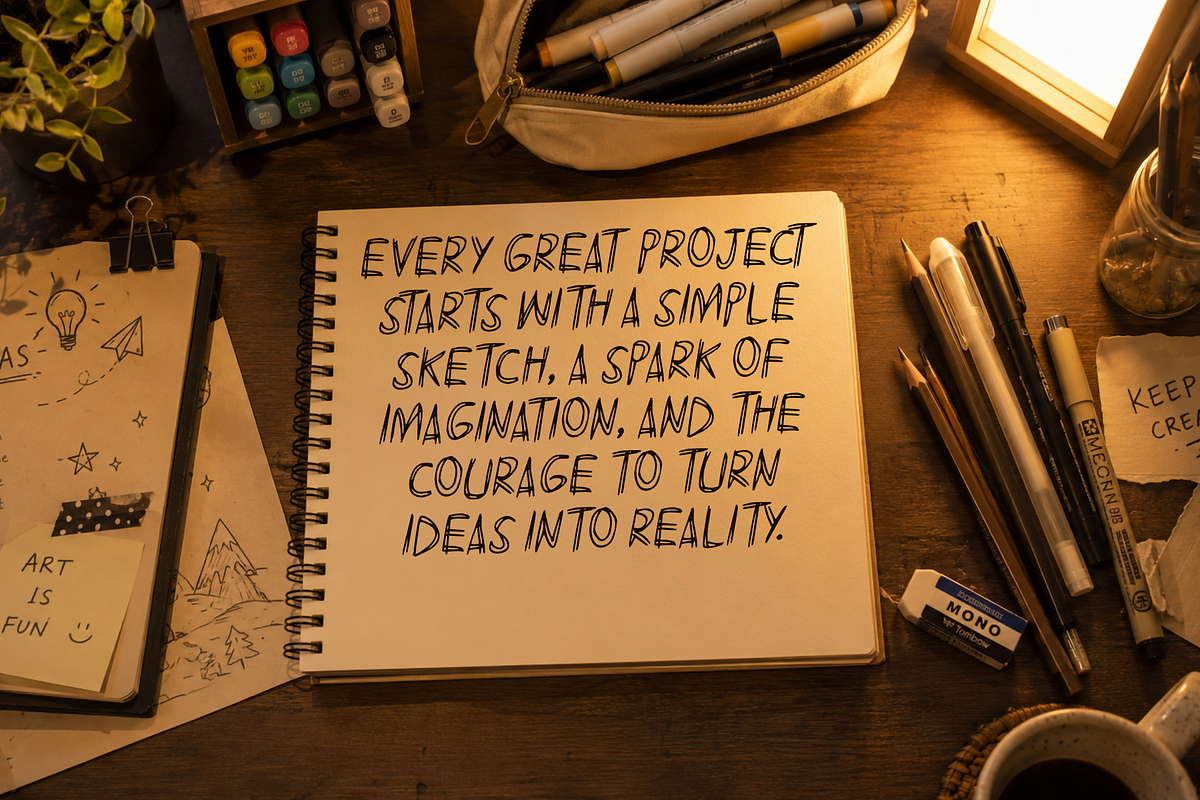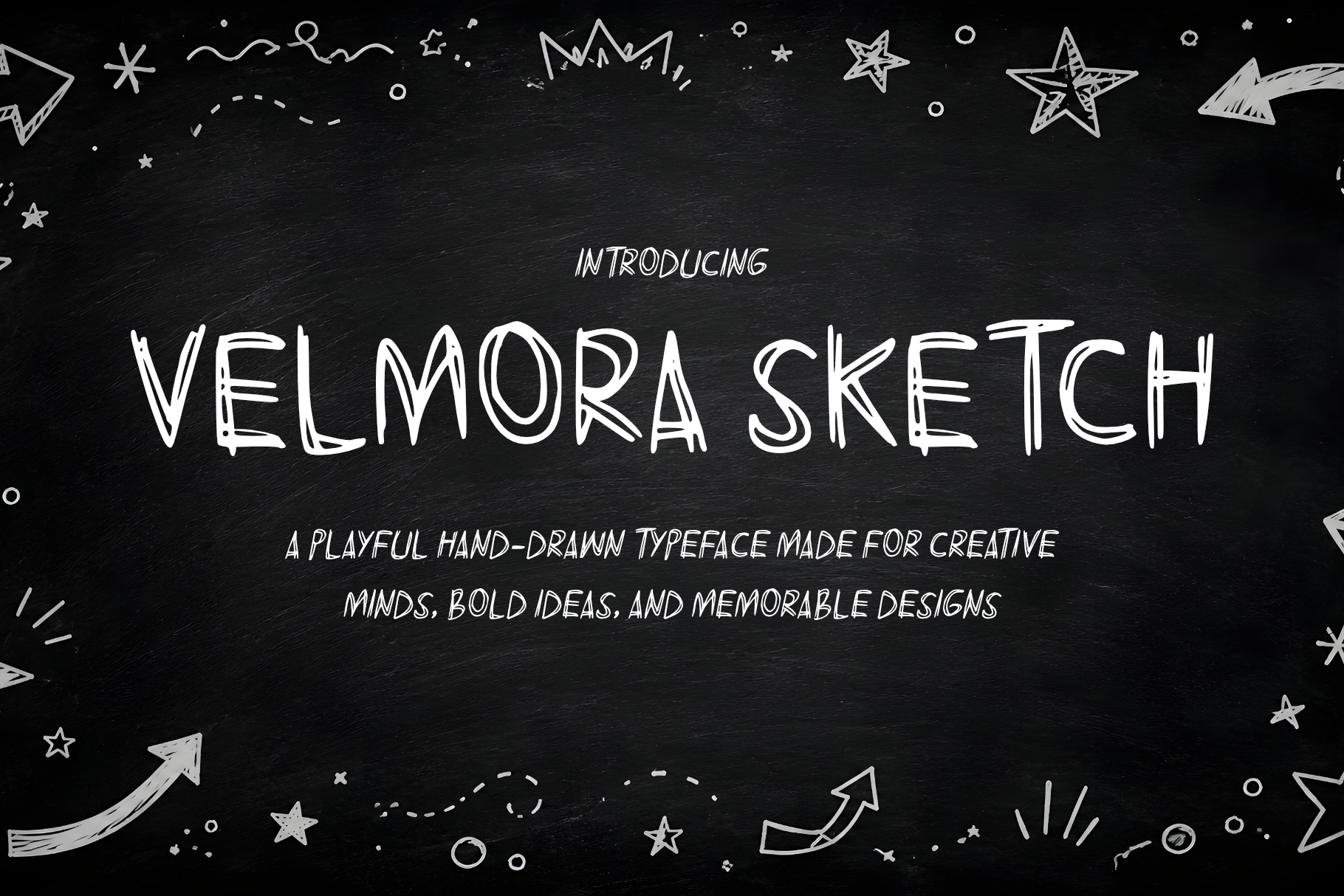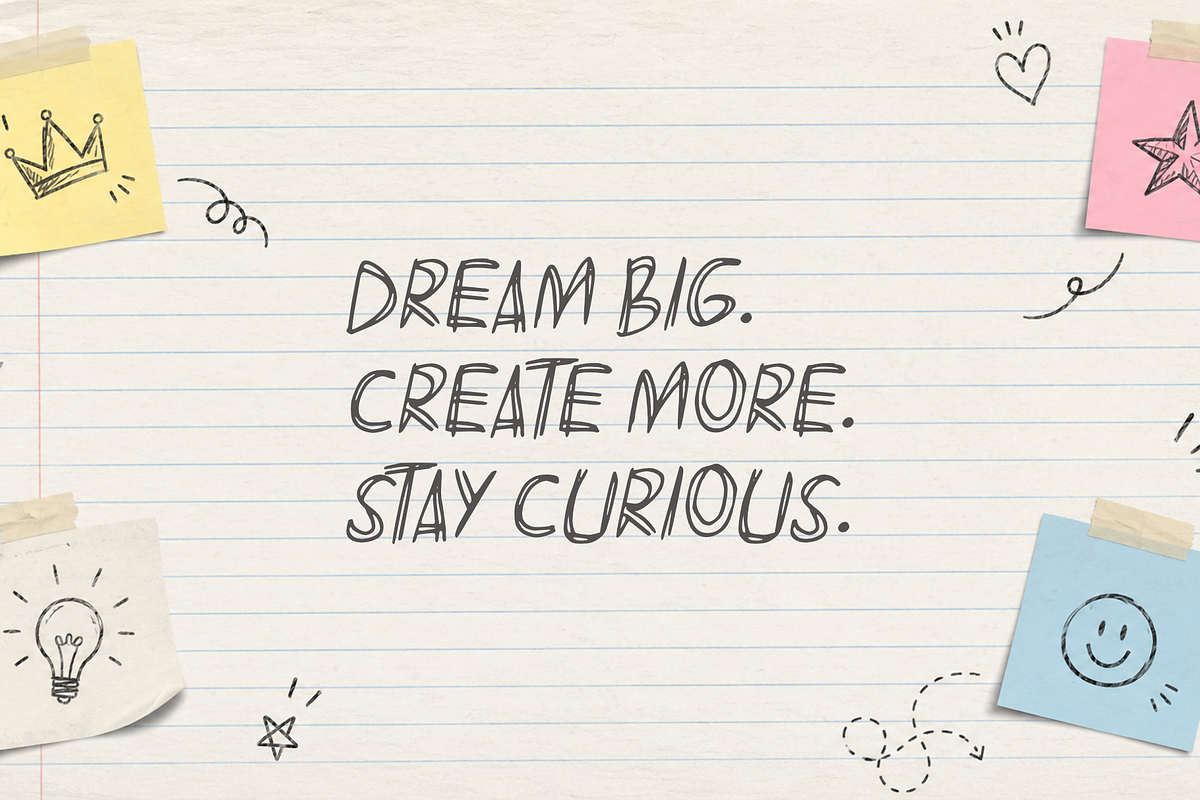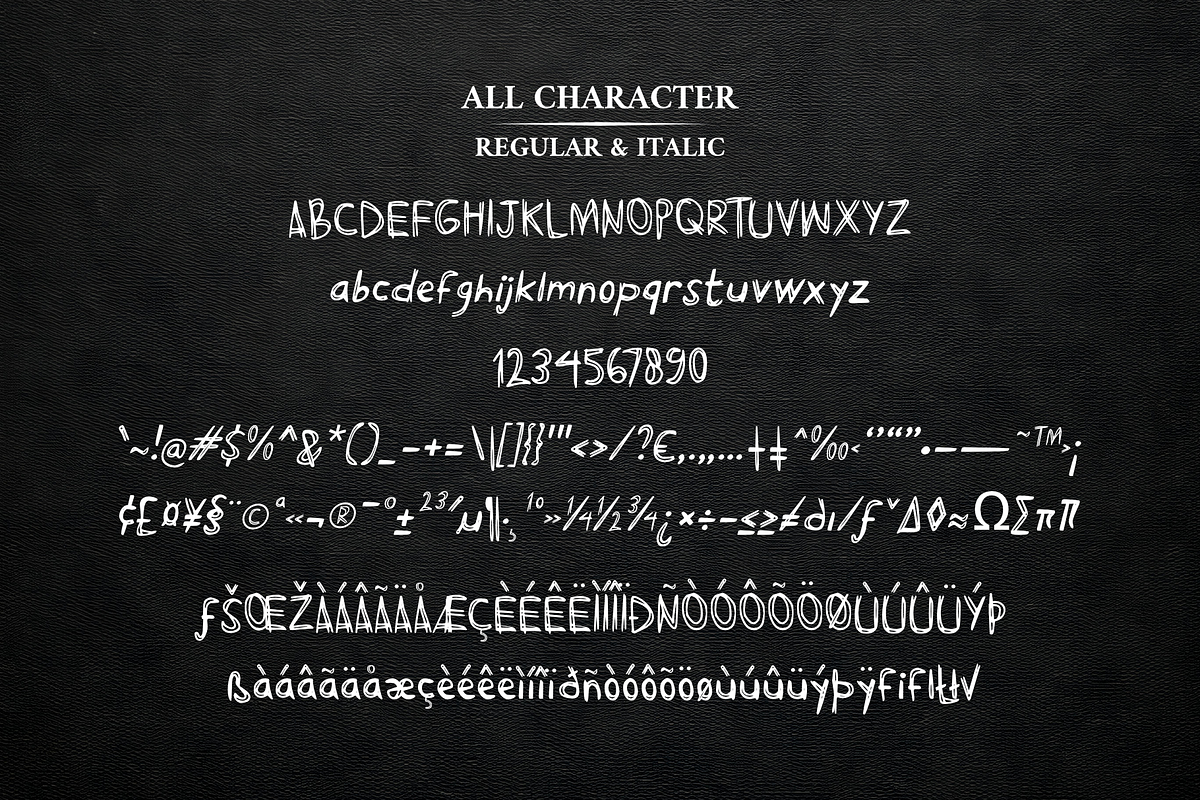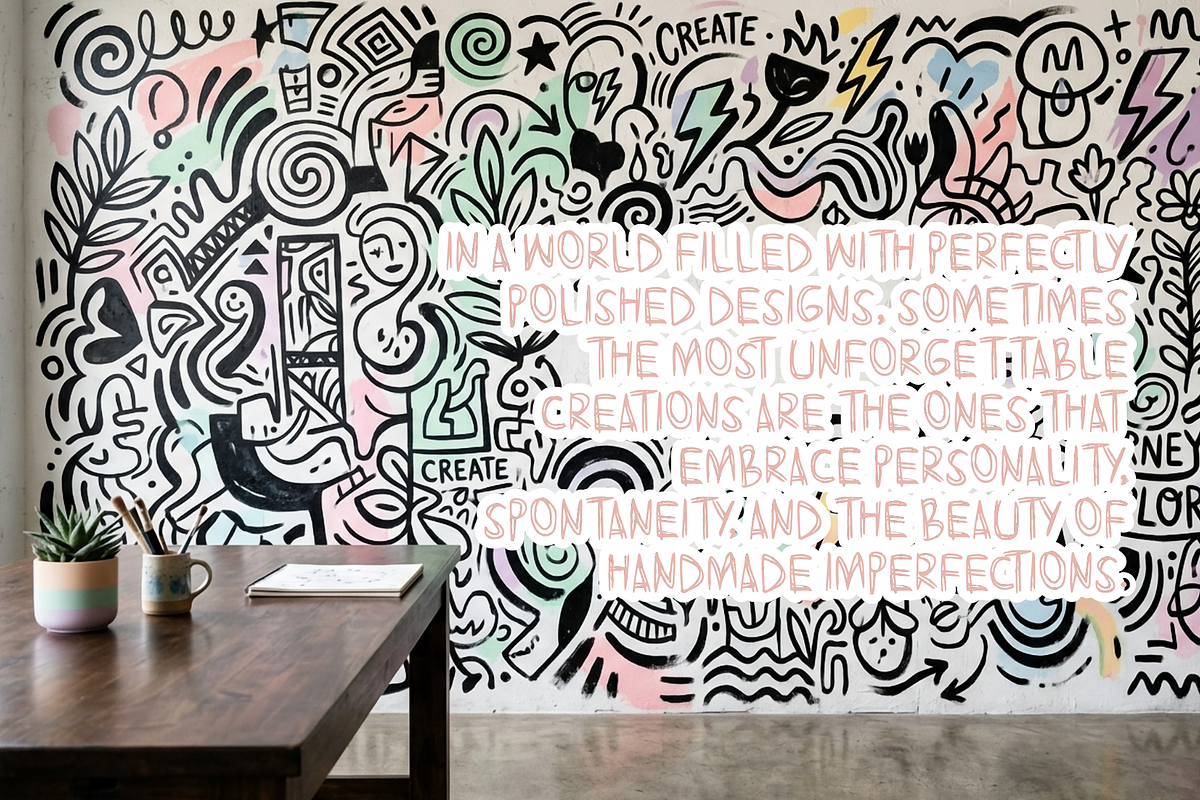
Velmora Sketch - Playful Doodle Font
Velmora Sketch is a playful hand-drawn display font inspired by the charm of spontaneous pencil sketches and creative doodles. Its organic lines, imperfect strokes, and handcrafted appearance bring warmth, personality, and authenticity to any design. Designed to capture the feeling of ideas coming to life on paper, Velmora Sketch adds a fun and imaginative touch while maintaining excellent readability.
Perfect for creative branding, children's products, posters, social media graphics, packaging, journals, DIY projects, and artistic merchandise, this font effortlessly creates a friendly and approachable atmosphere. Whether you're designing a whimsical quote, a handmade-inspired logo, or a playful headline, Velmora Sketch helps your message stand out with character and creativity.
Hand-drawn sketch style
Playful and expressive character shapes
Natural, organic strokes
Great for headlines and display text
Suitable for creative and casual designs
Easy to pair with minimalist or handwritten fonts
Best Used For:
Branding & Logos
Children's Designs
Posters & Flyers
Social Media Content
Scrapbooking & Journals
Creative Merchandise
DIY & Handmade Projects
Regular & Italic